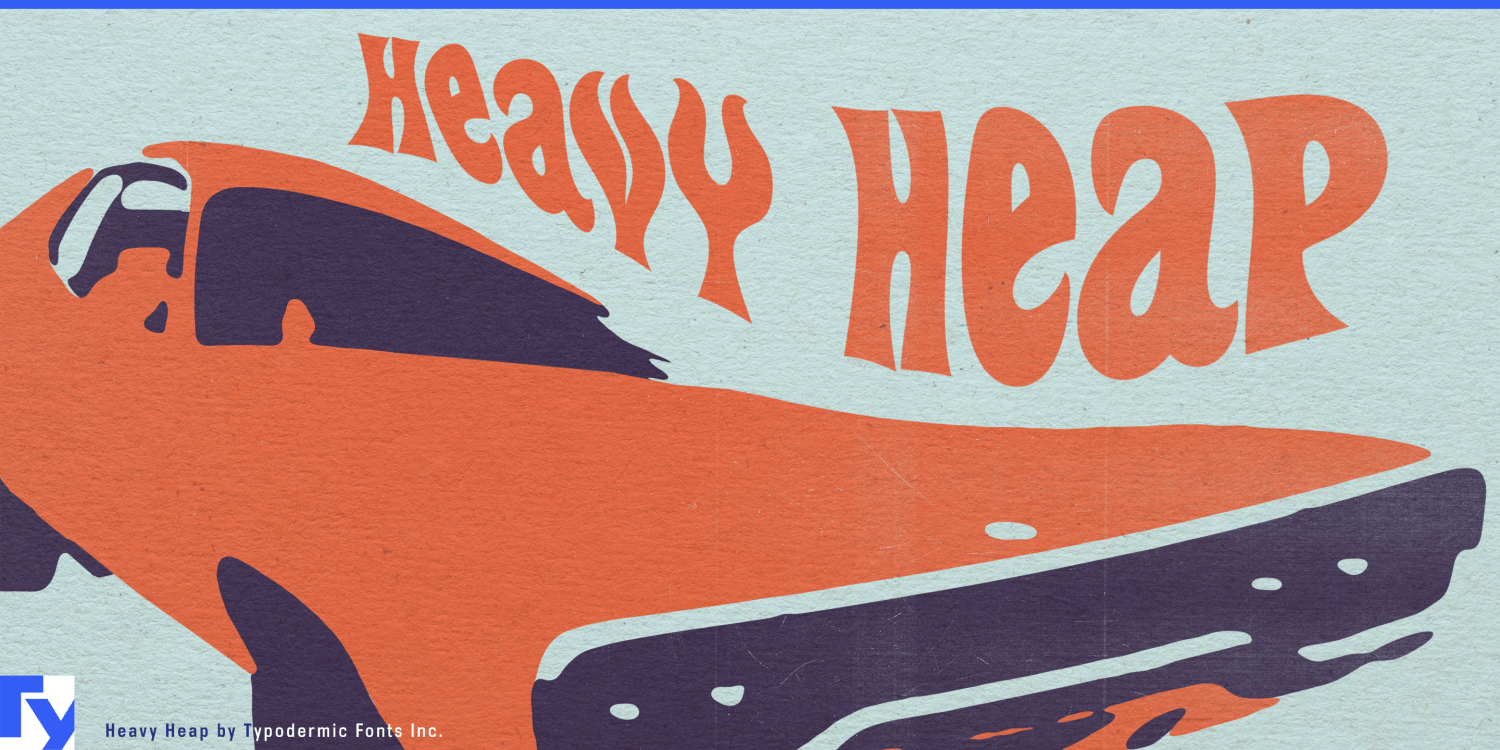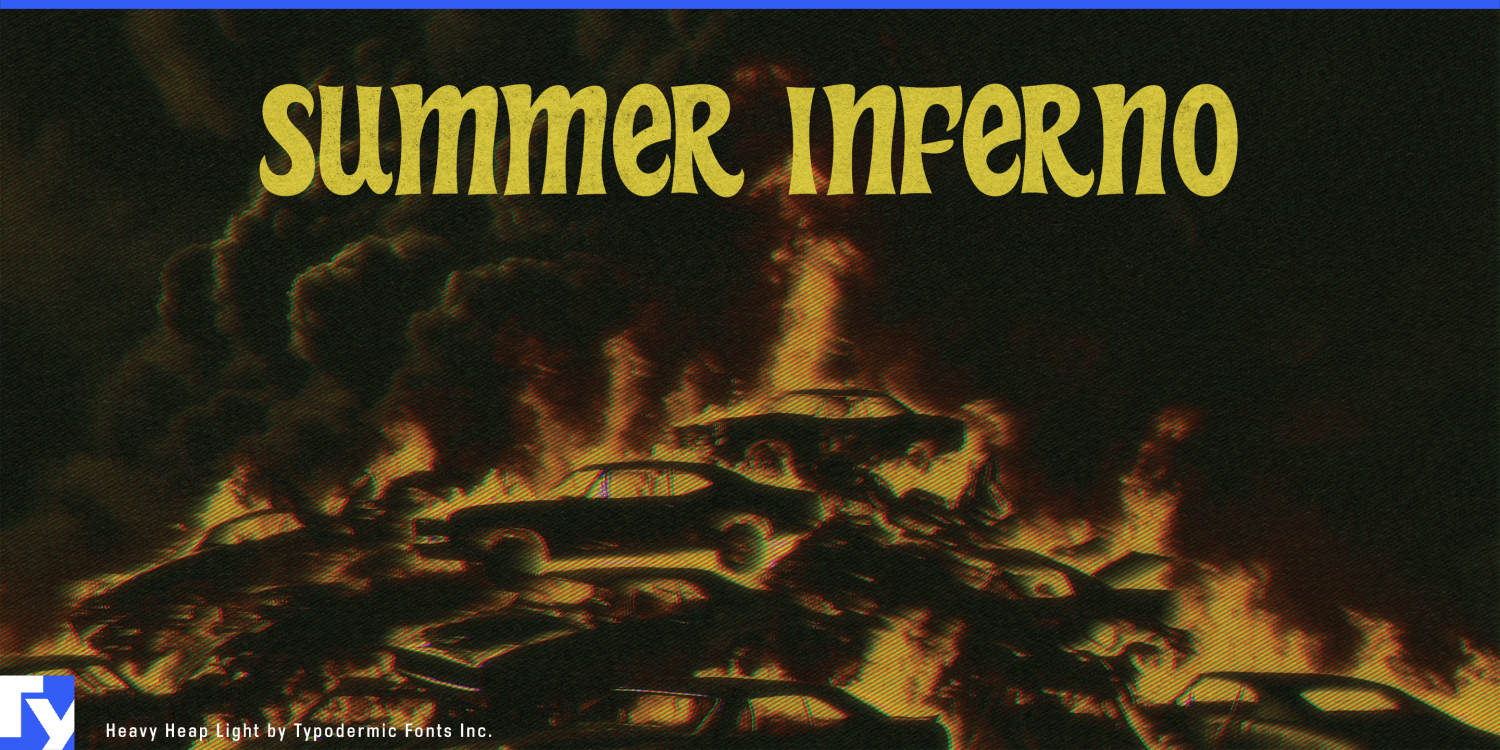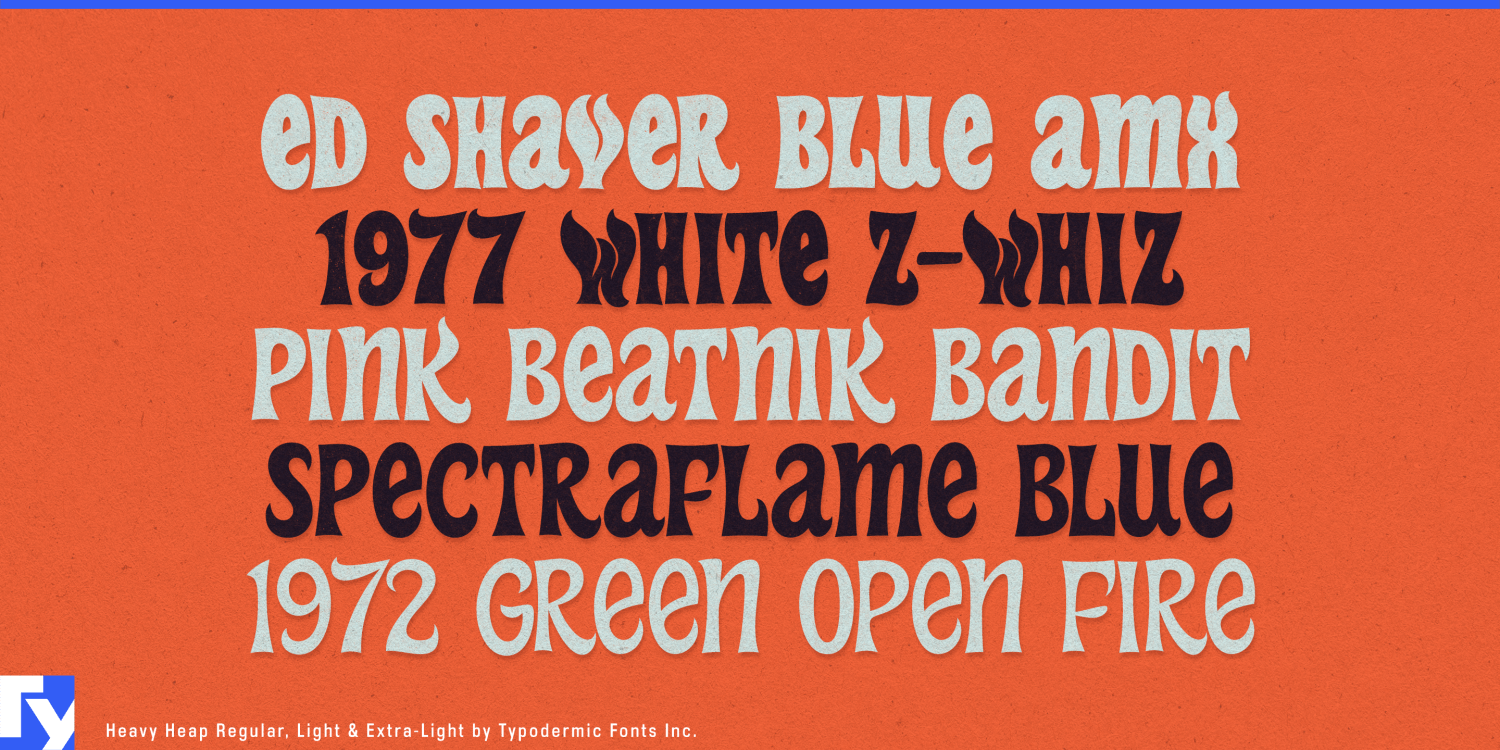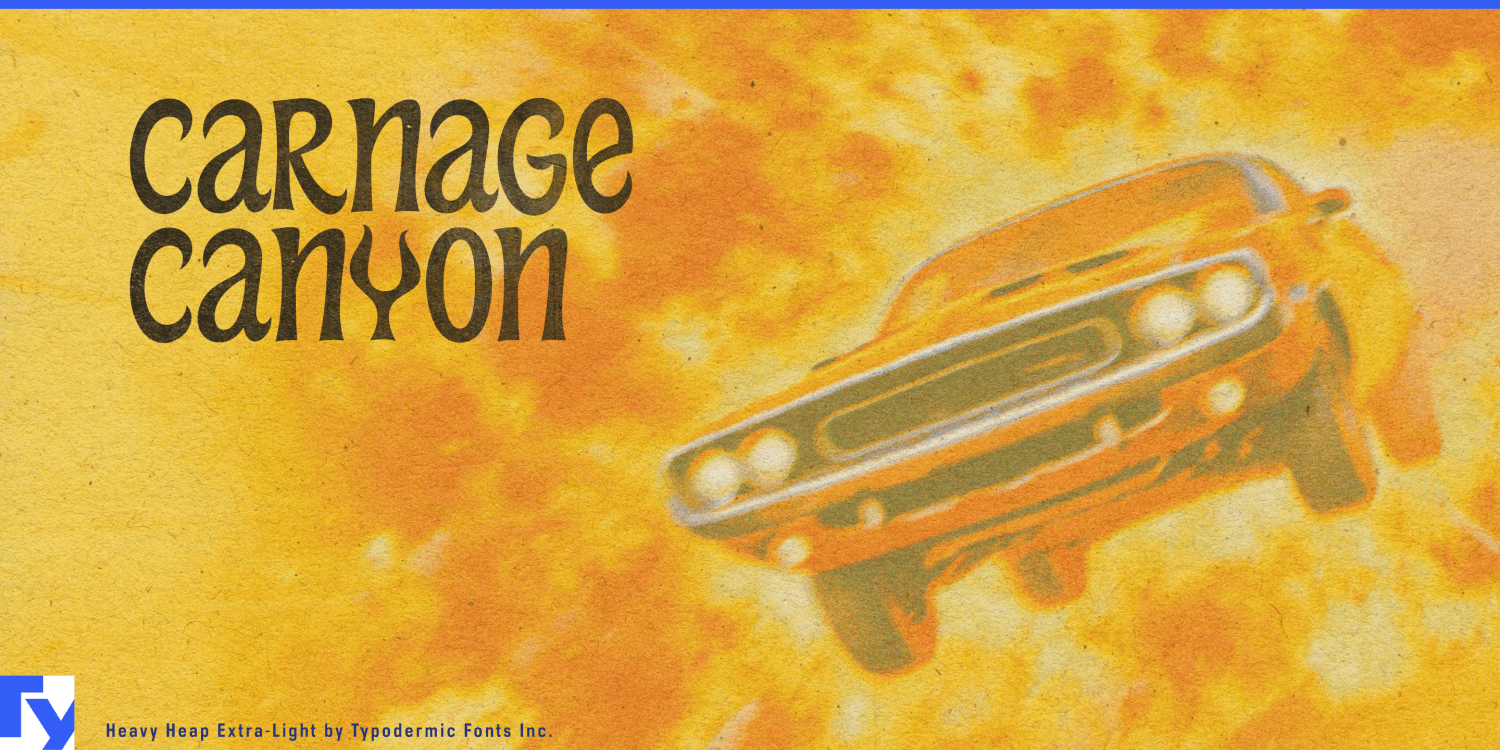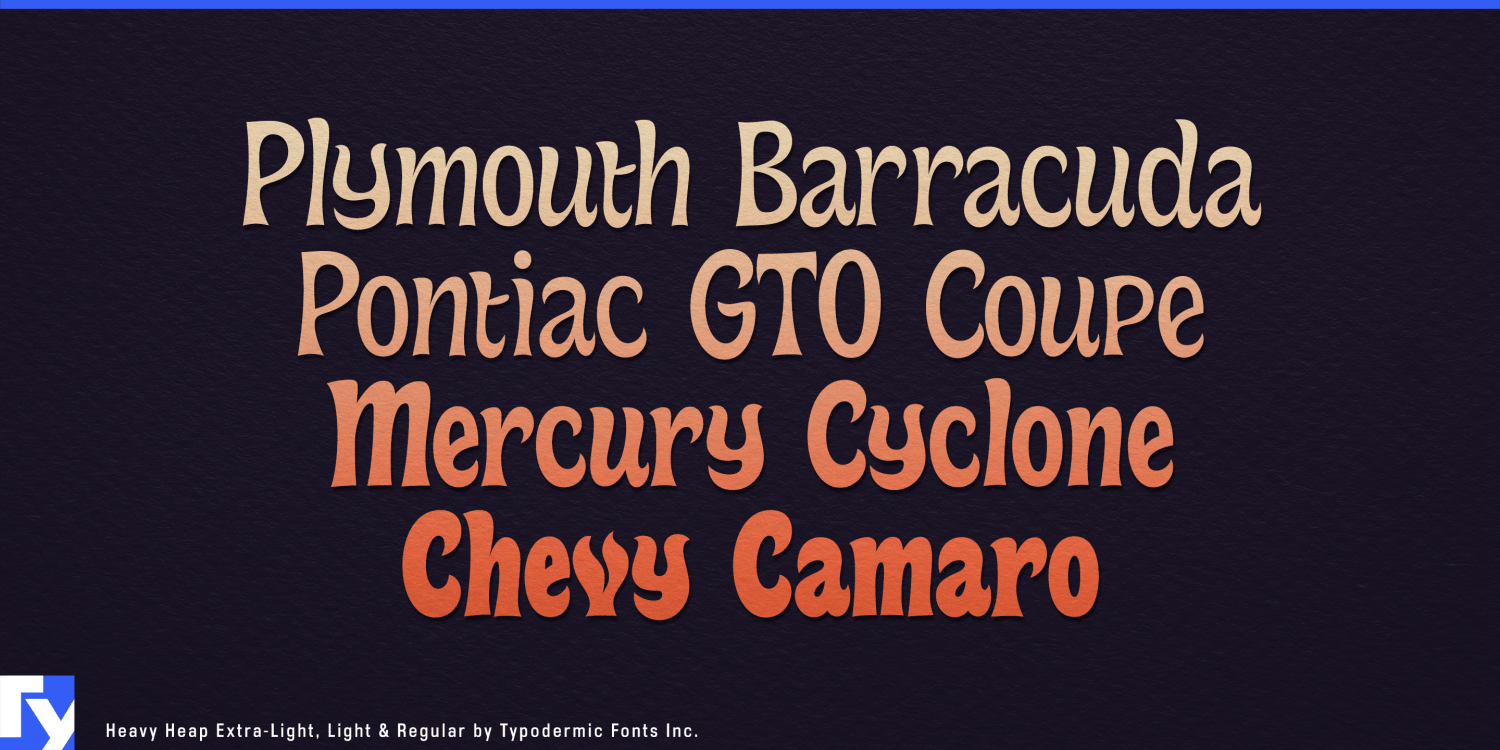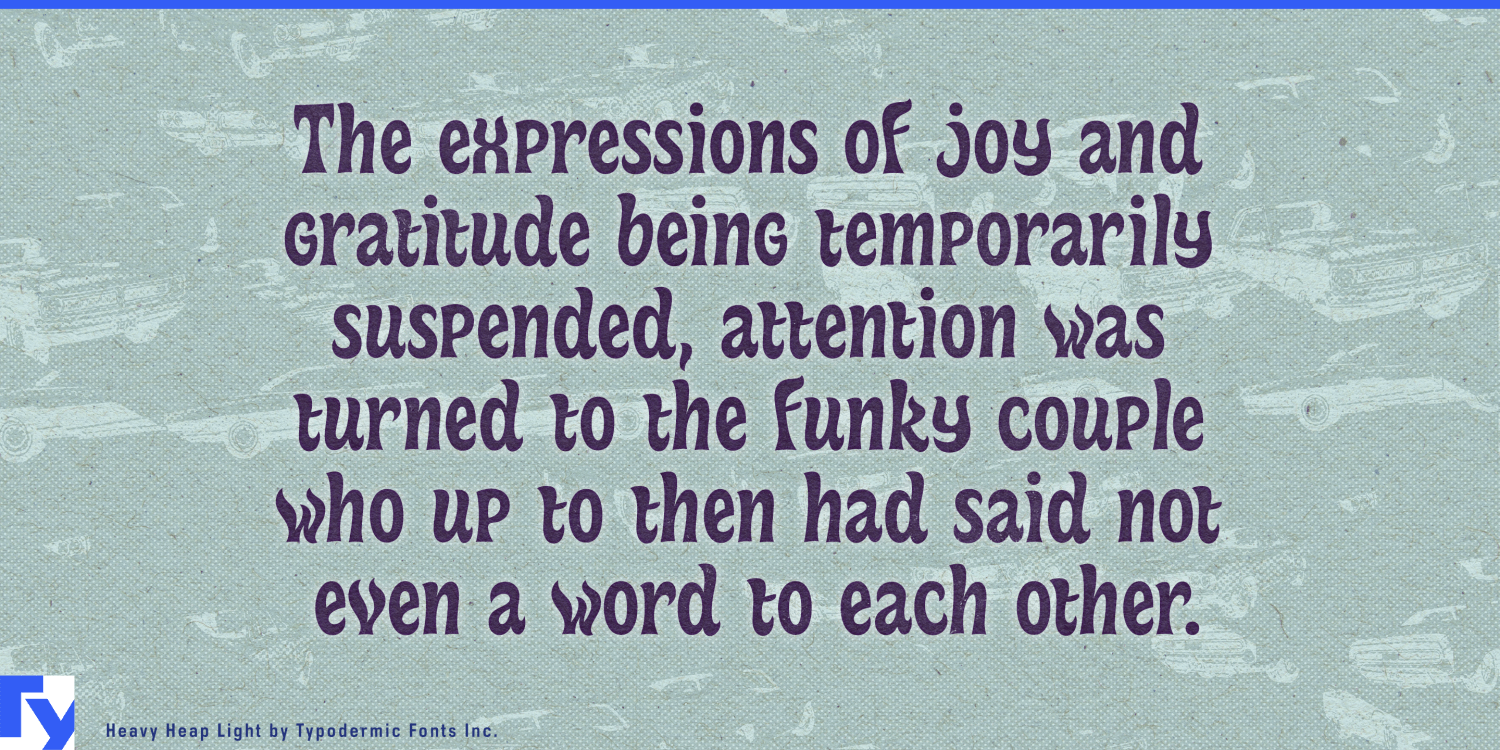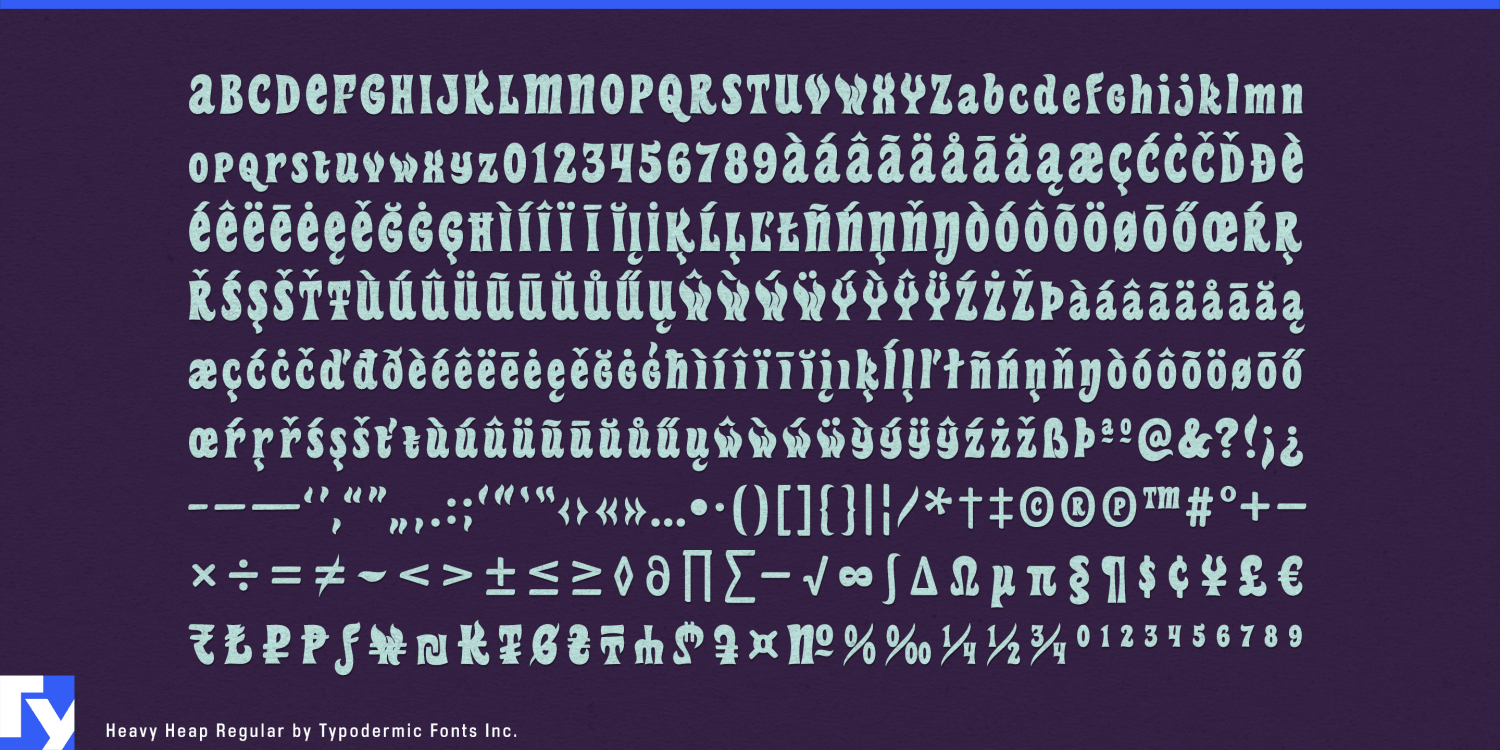
Heavy Heap
Font Family by Typodermic
Heat is easy to communicate with a flame. The harder part is deciding what kind of heat you mean. It might be burning rubber, barbecue smoke, chili-pepper heat, competitive energy or a Halloween flame that is more mischievous than frightening. Heavy Heap moves among those meanings because its flickering, pinched letterforms look hot and fast without automatically looking dangerous.
Heavy Heap grew from late-1960s hot-rod and custom-car lettering, a world of exaggerated forms competing with chrome, paint and speed. Its letters flare, narrow and twist without becoming literal illustrated flames. Custom-car shows, drag-racing shirts, garage merchandise, speed-shop graphics and classic-motoring events are natural territory.
Food gives those same shapes a different kind of heat. Hot sauce bottles, barbecue sauce labels, dry-rub tins, wing-shop menus, chili products and spicy snack packaging can use Heavy Heap as part of the flavor message. Smokehouse specials, barbecue festivals and heat-level names benefit from lettering that signals hot and smoky without falling back on distressed Western clichés.
The forms can also read as energetic rather than intimidating. Ultimate frisbee teams, disc graphics, tournament shirts, youth leagues and skate events can use Heavy Heap for identities that feel fast, competitive and fun. That playful edge also suits Halloween graphics for school parties, pumpkin-patch events, trick-or-treat promotions, candy packaging and goofy monster themes where the mood should be lively rather than genuinely frightening.
Model cars, slot-car sets, RC racing and retro toy packaging connect naturally to the automotive roots while emphasizing the more playful side of the design. Extra-Light can look wiry and almost psychedelic; Light keeps the restless silhouette with more air; Regular increases the density and impact.
Heavy Heap is at its best when the subject needs heat with a sense of fun: tires smoking at the strip, sauce hitting the grill, a disc cutting through the air or a cartoon flame flickering above a bowl of Halloween candy.